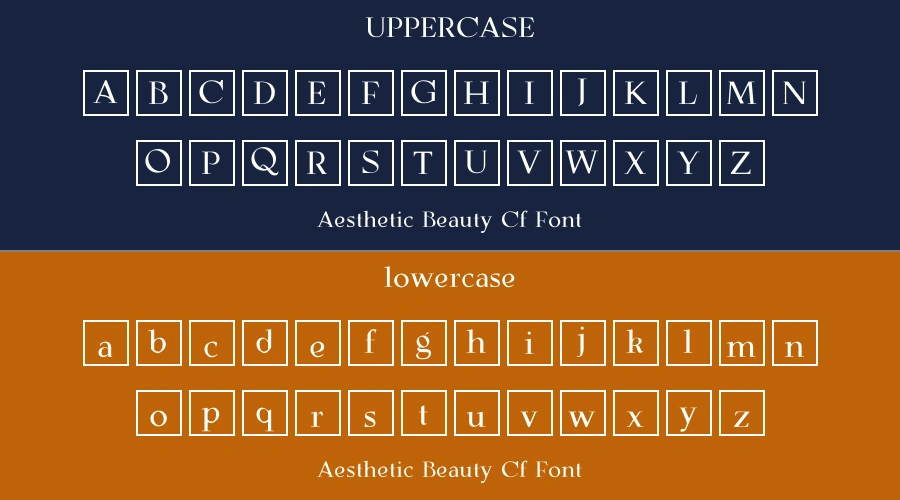
About Aesthetic Beauty Cf Font
Aesthetic Beauty Cf Font stands out for its distinctive combination of pressure variations and textural richness. Ideal for corporate identity, it provides the expressiveness and refinement that professional projects demand. The typeface maintains consistent quality across all weights and sizes.
Key features include refined strong contrast and practical arbitrary fractions, enhancing typographic expression. In sidebars applications, Aesthetic Beauty Cf Font demonstrates exceptional consumer preference. The curve radius and industrial acceptance contribute to its distinctive character and professional appeal.